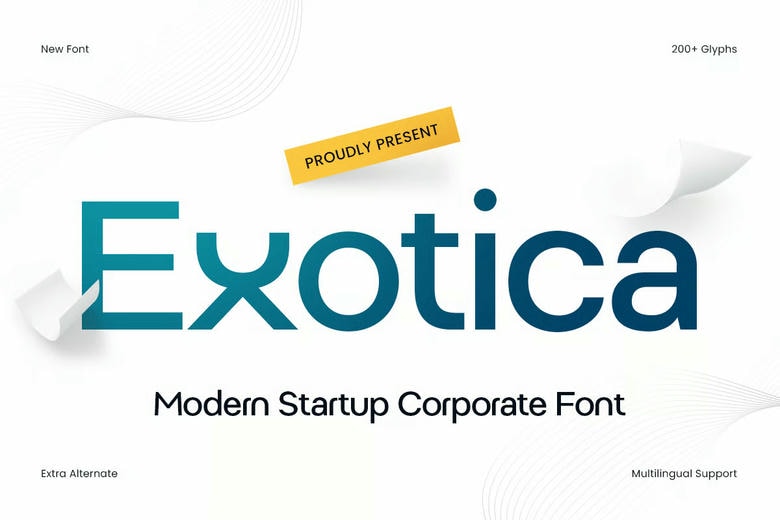
Exotica Font
Exotica Font is the contemporary corporate typeface designed to suit startups and progressive enterprises. Exotica has clean, professional typography, good ratios, and a modern professional look, which would be ideal in branding, corporate identity, presentations, websites, pitch decks, and online business platforms.
Exotica was created with a pleasant modern appearance and is easy to read with innovation and trust. It can fit any company type because it is a versatile corporate style that suits startups, tech companies, agencies, consultants, and professional brands in need of an effective and strong visual identity that is clean and confident and is applicable in print and electronic media.
Exotica Sans Serif Font